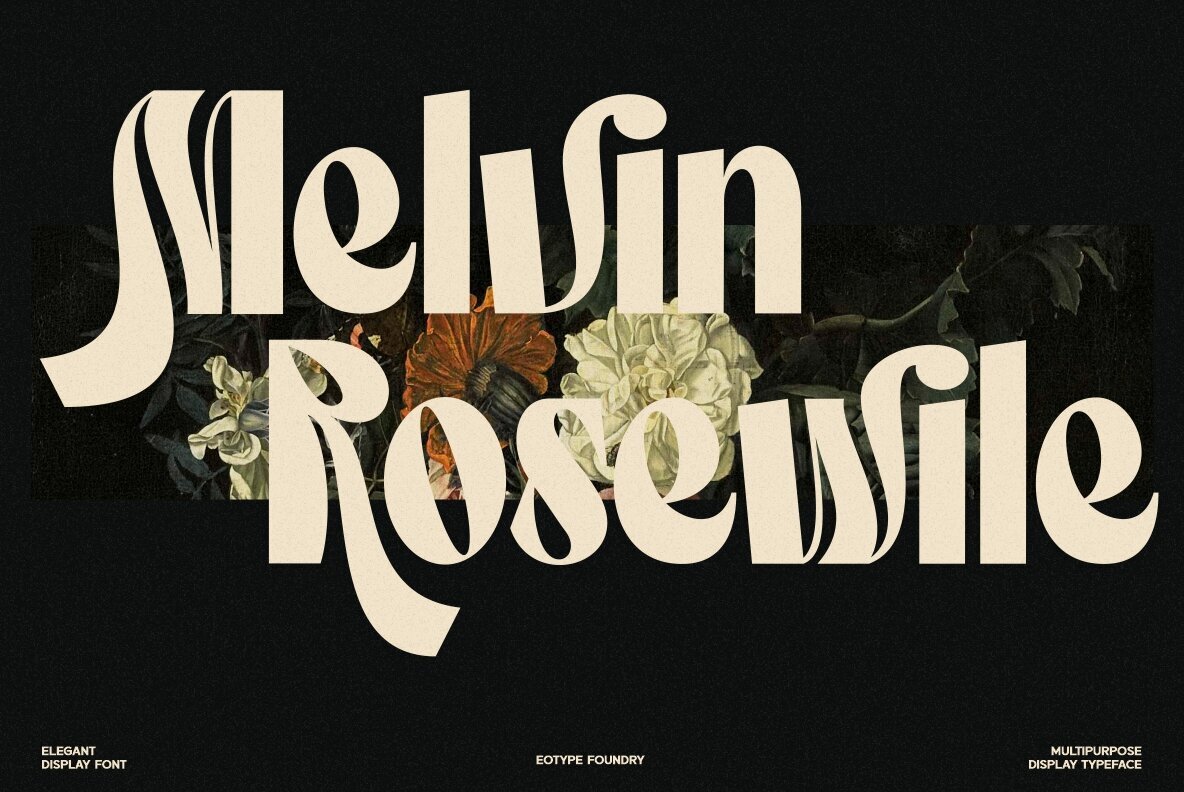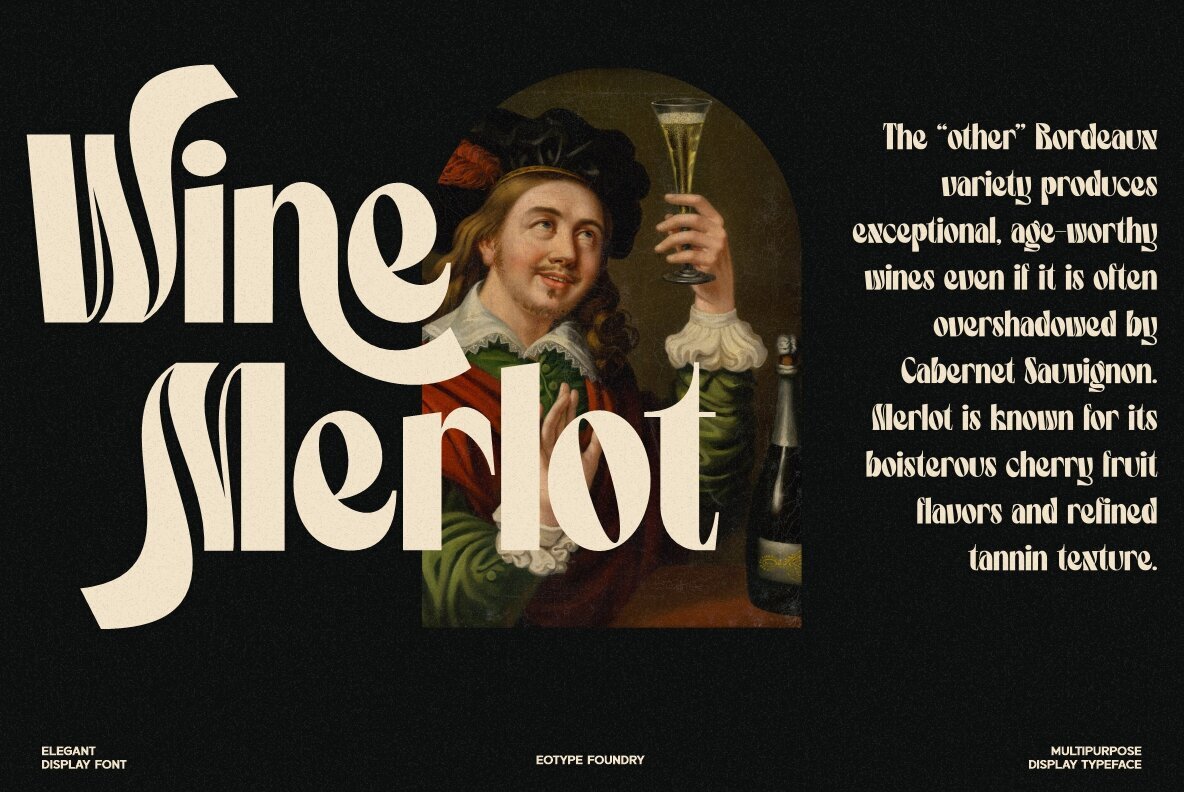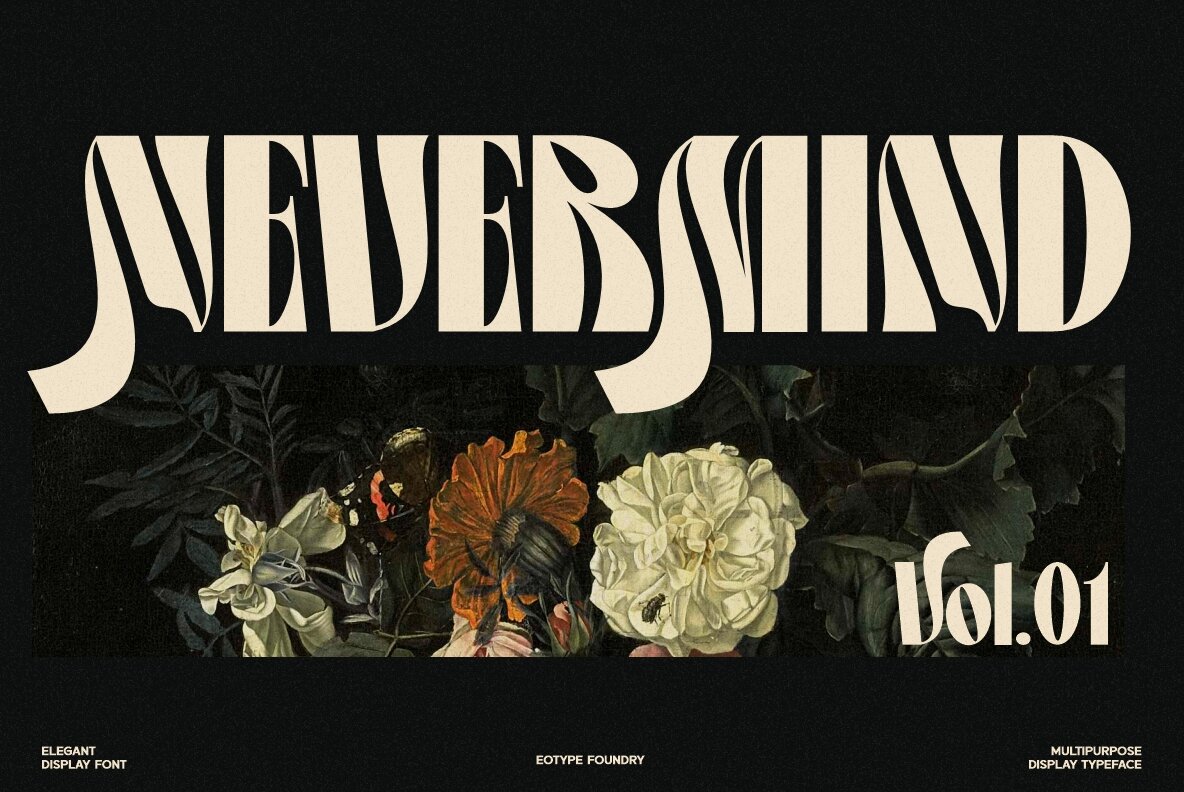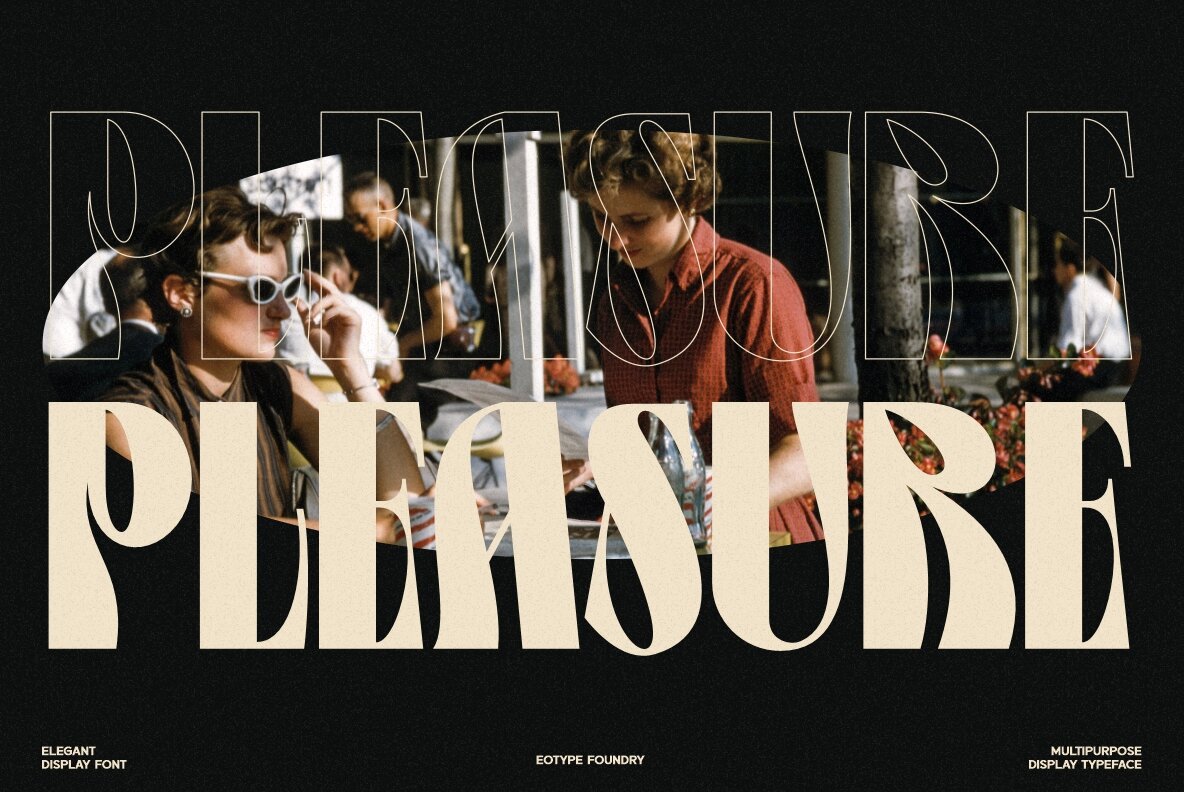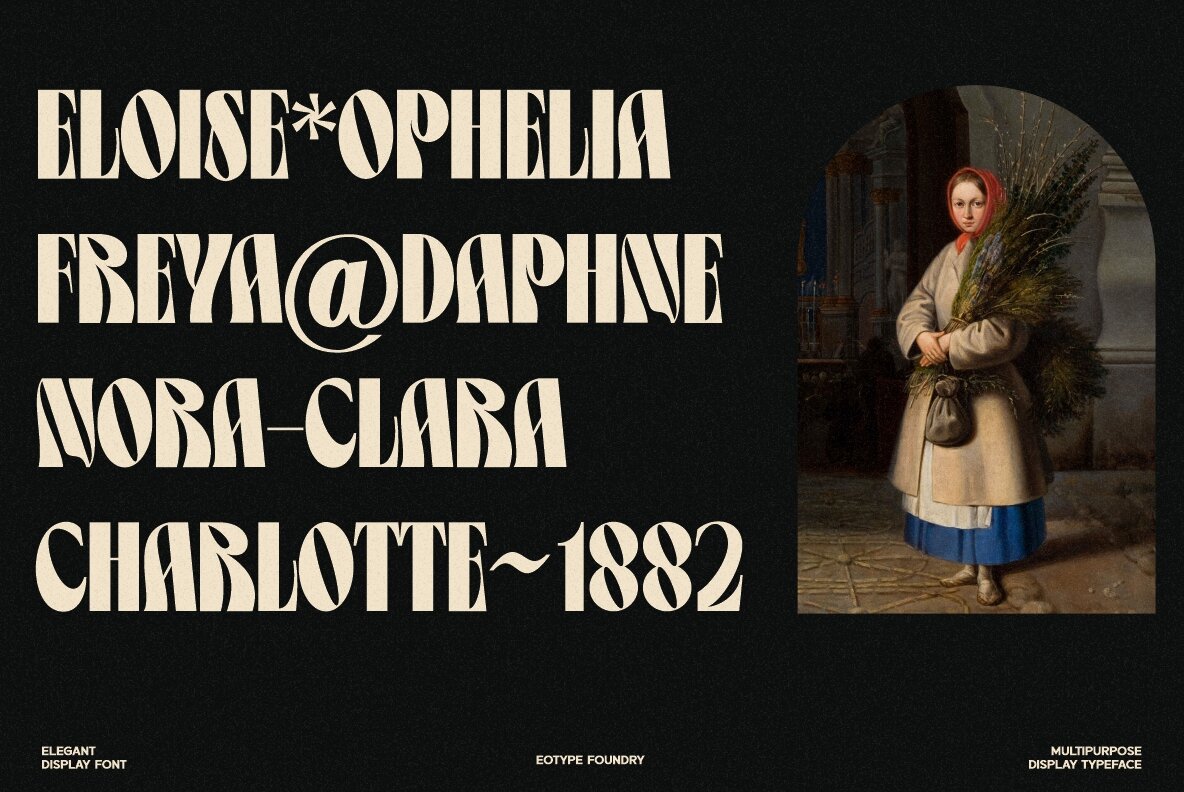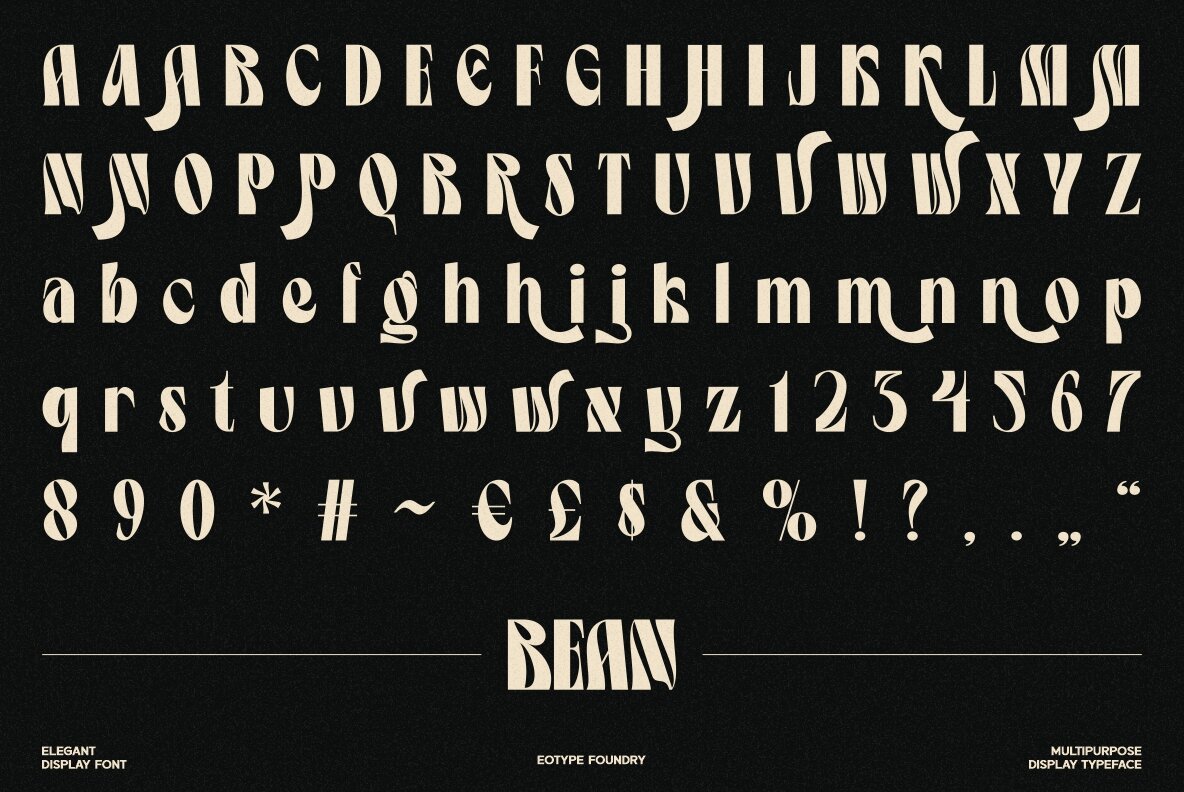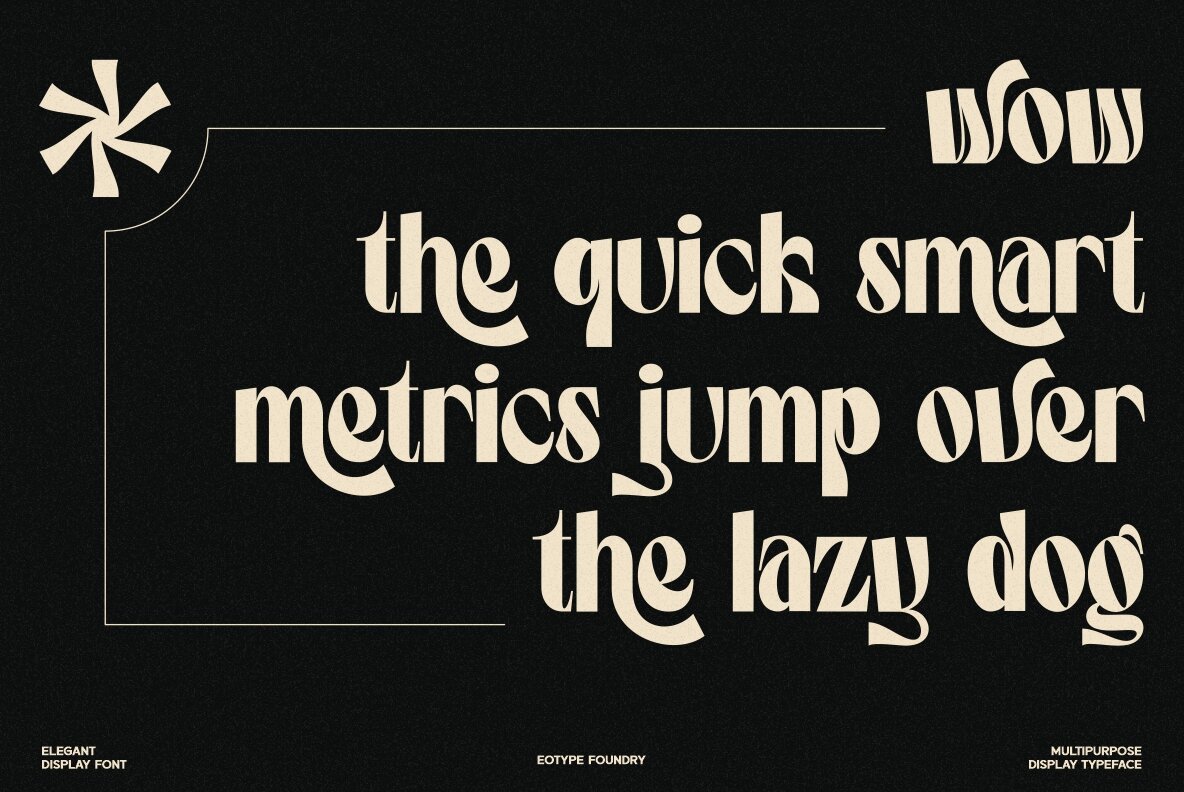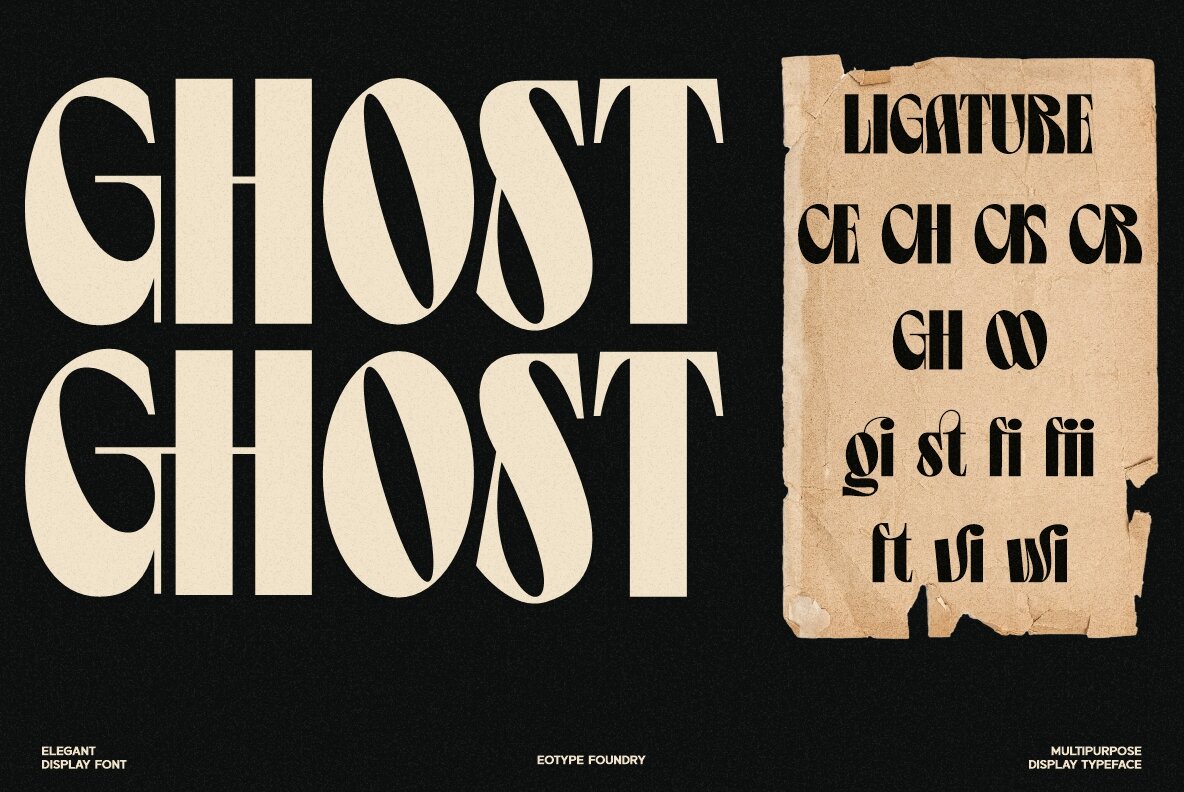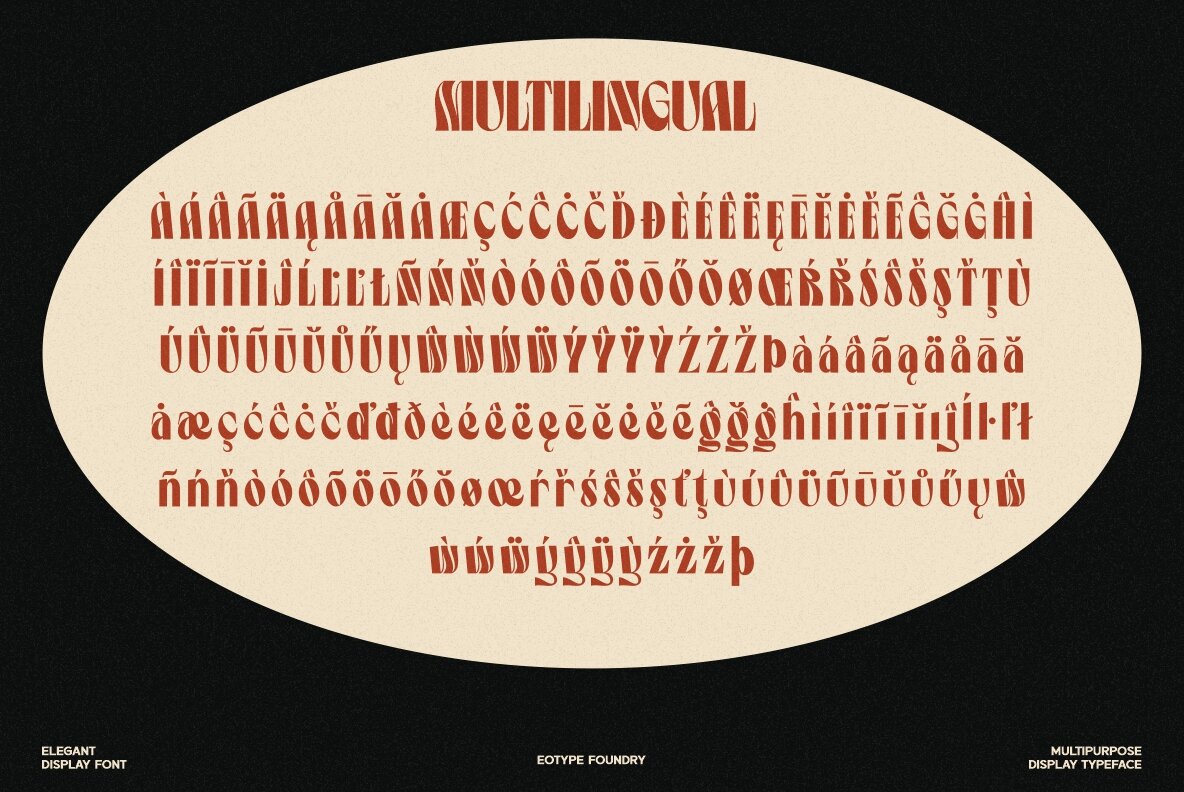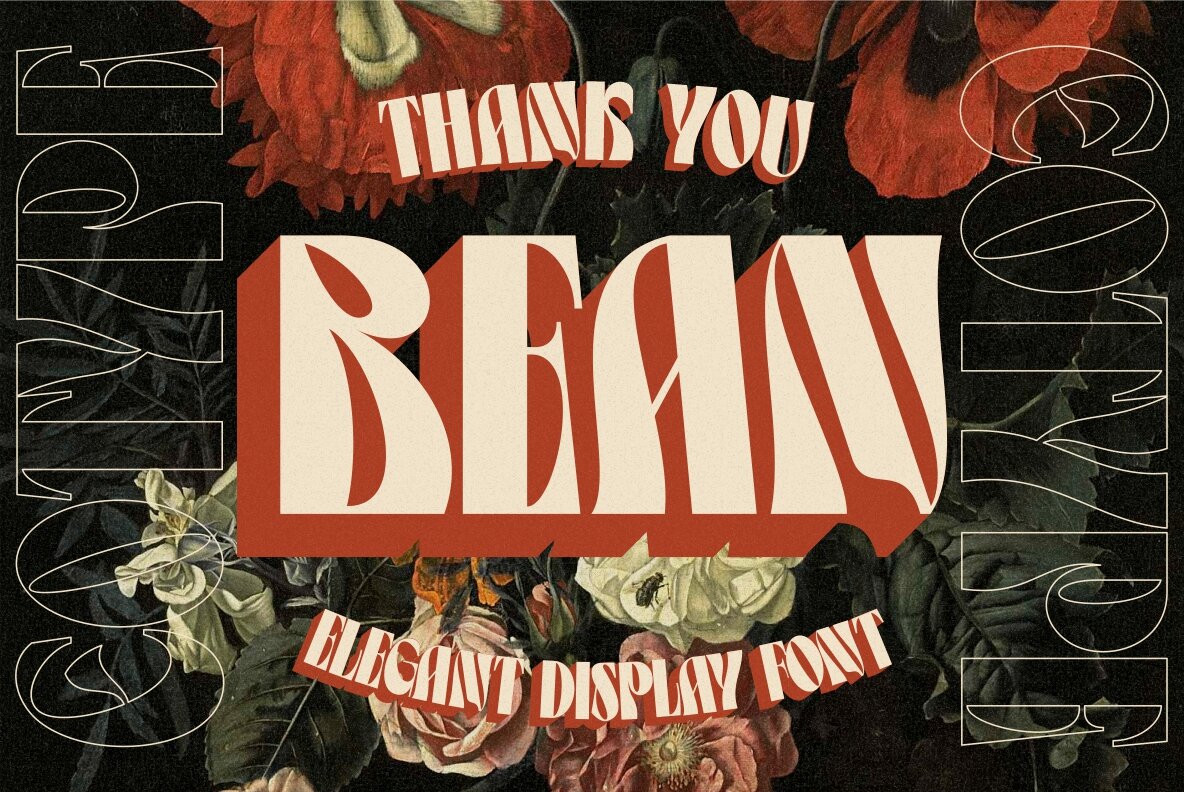
Bean Font
Bean Regular
Imbued with a distinct retro flair, Bean by eotype Studio stands out as a unique display font. Its extraordinary curves and thick dimensions make it a striking choice for modern vintage designs. From posters and banners to logos and headlines, this font adapts easily to a range of creative projects.Bean: Retro Condensed Display Font with Character